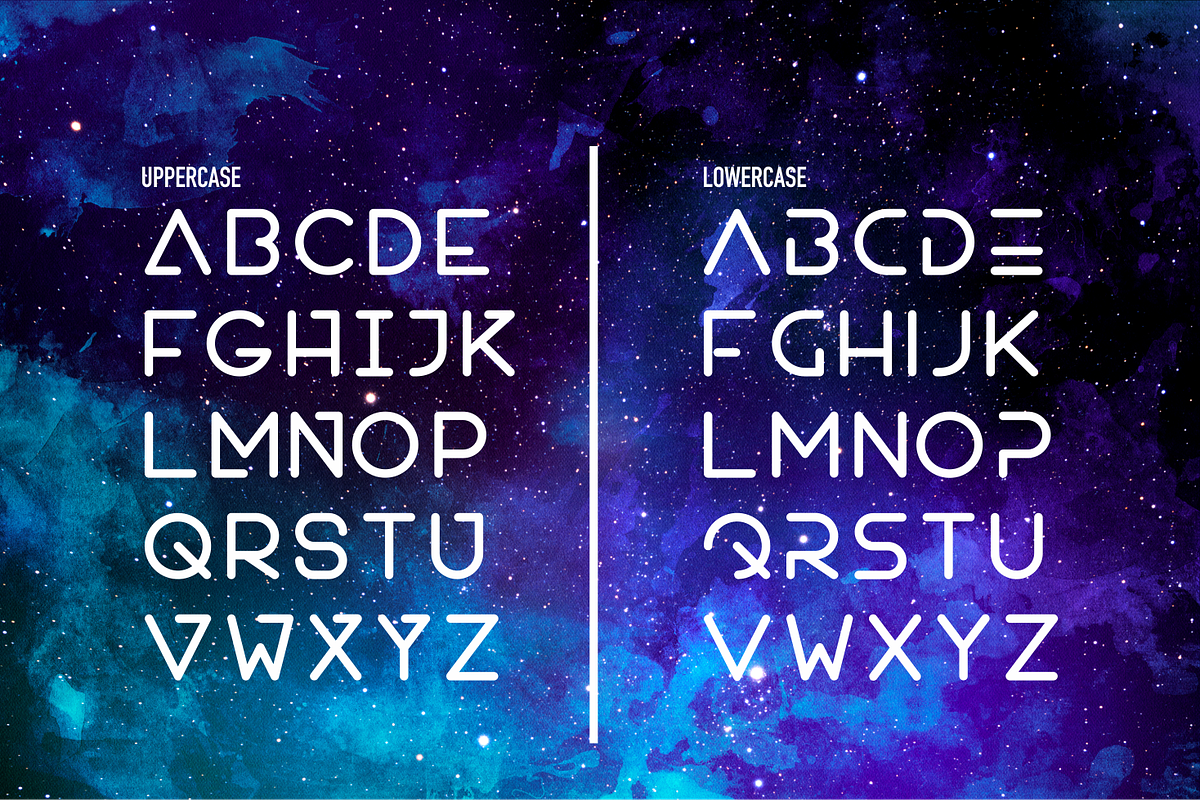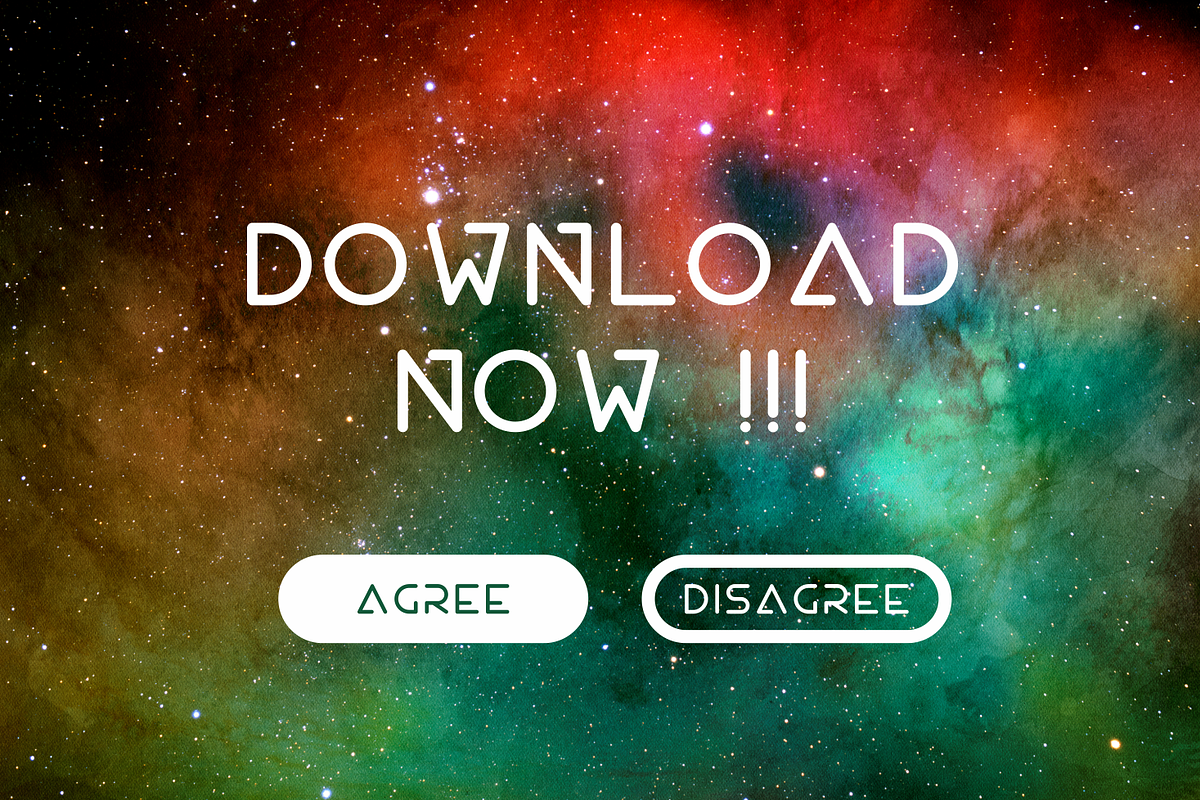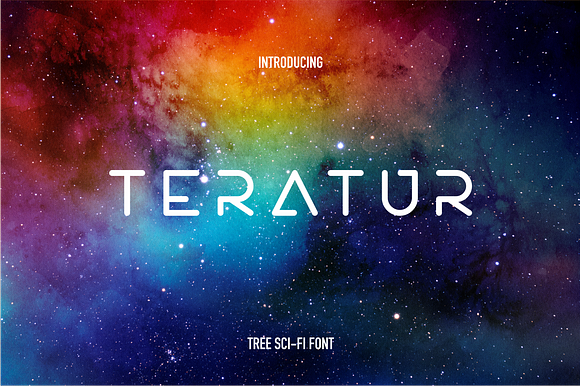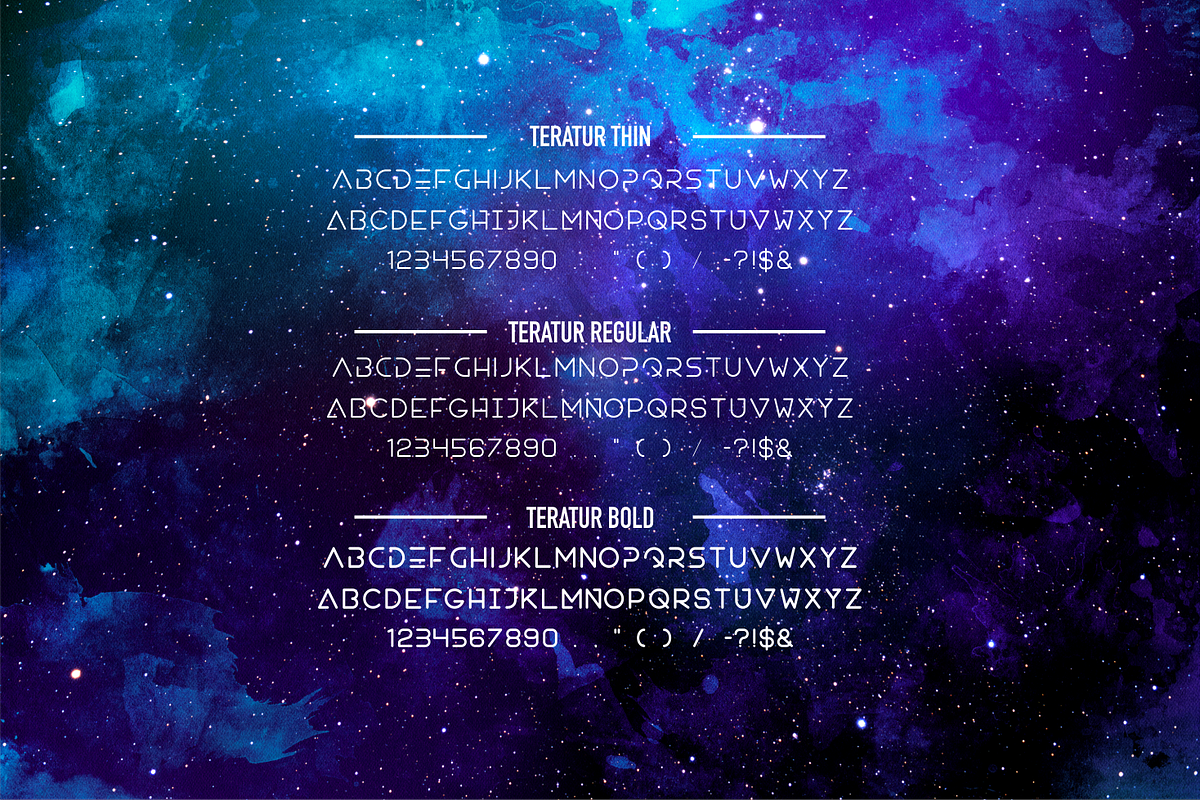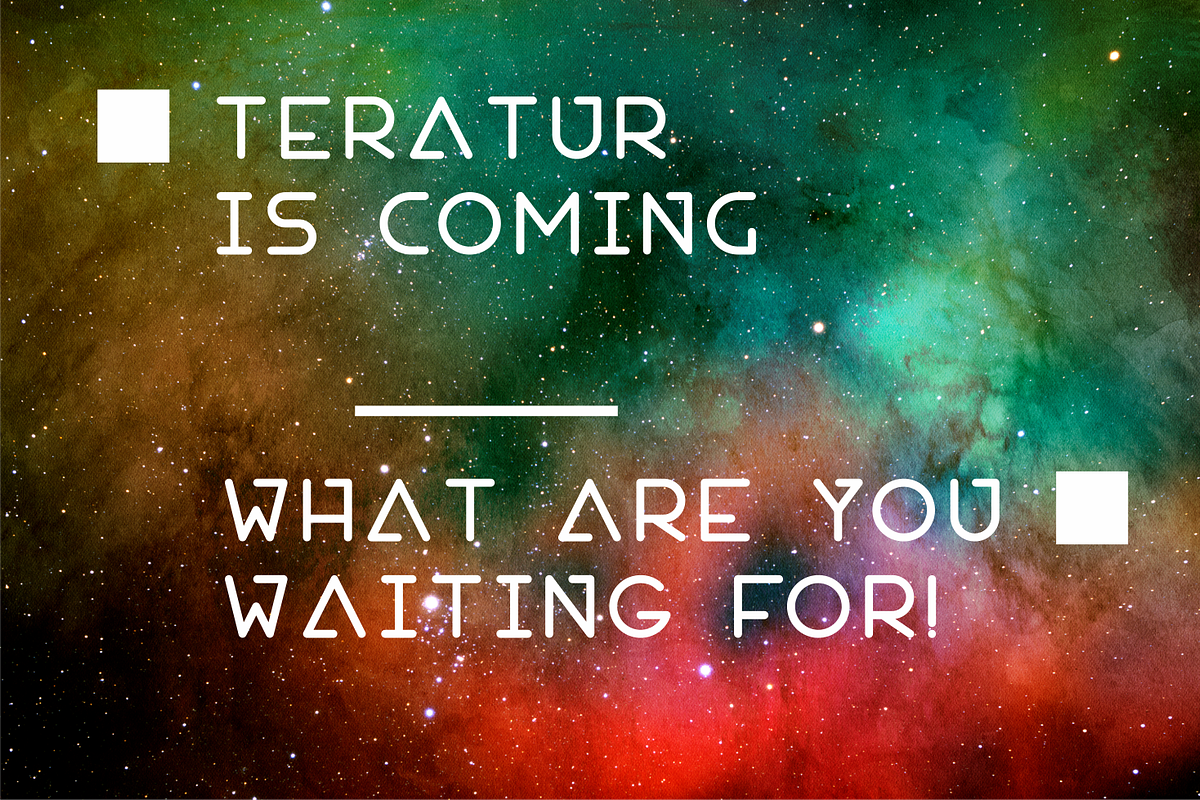
Teratur Typeface ( 3 Font)
Teratur is a modern, minimal and clean with round shape font family. Teratur comes in thin,regular and bold weights. Toggle caps lock to use the alternate letters.
- Toggle caps lock to use the alternate letters.
- Teratur Thin
- Teratur Regular
- Teratur Bold